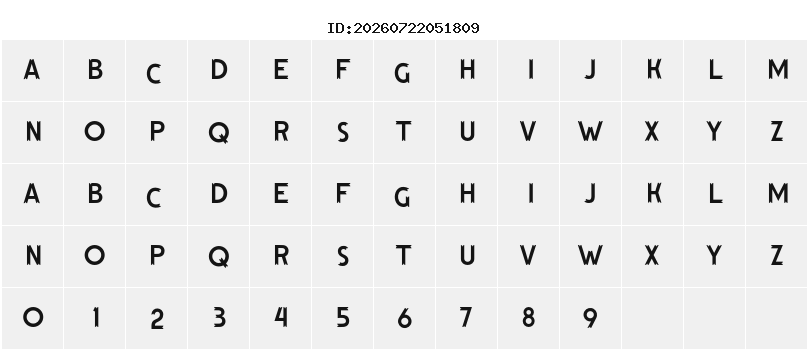
About Hutan Lestari.otf
Hutan Lestari.otf is a modern, elegant sans-serif font designed for ultimate readability and visual harmony. Perfect for branding, headlines, web design, and print materials.